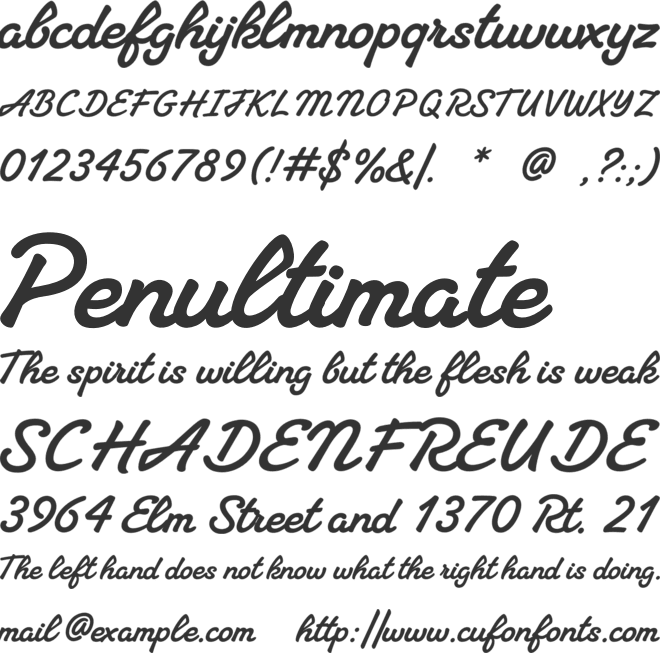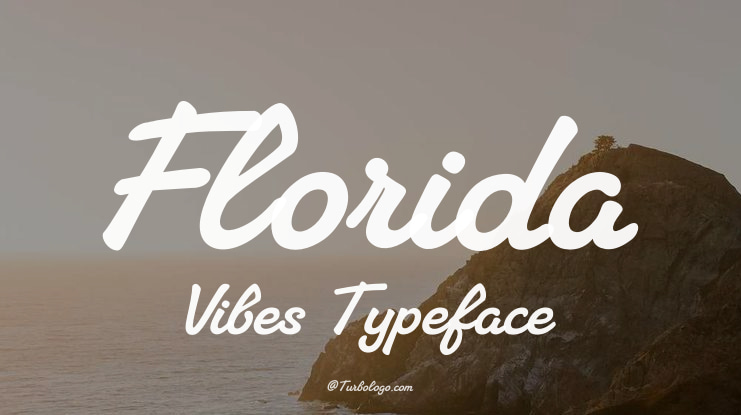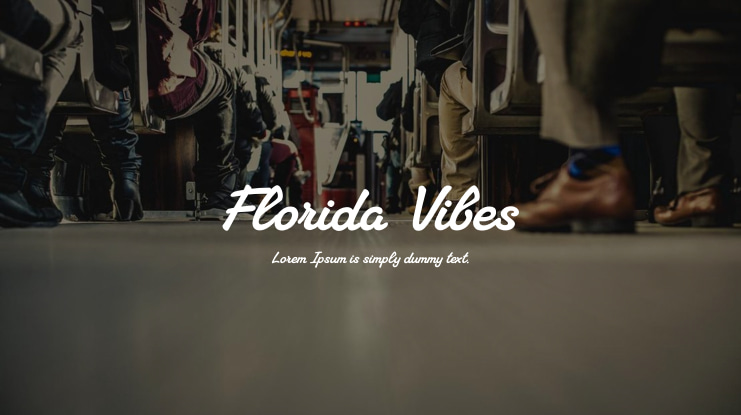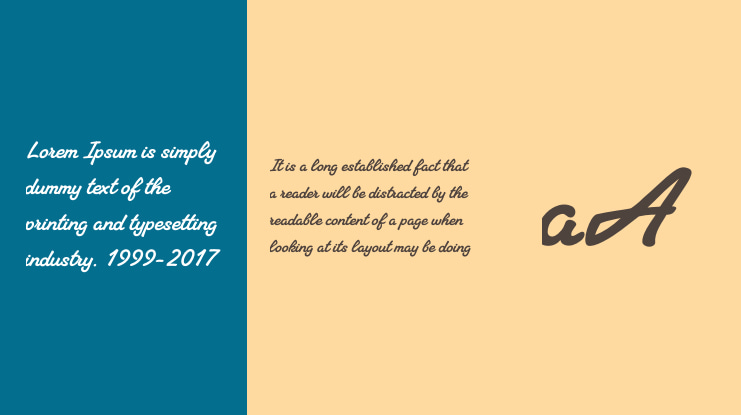
Florida Vibes Font
Florida Vibes is a handwritten font that captures the laid-back, relaxed atmosphere of the Sunshine State. Its casual, flowing strokes and playful, bouncy letters make it perfect for creating a vacation-inspired aesthetic. Whether you're designing a wedding invitation, a logo, a tropical vacation brochure, or simply want to infuse your designs with Florida's laid-back style, Florida Vibes is the ideal choice. With its friendly and informal feel, this font adds a fun and playful touch to any project.
Florida Vibes can be used in logos to give branding or marketing materials a personal touch, helping businesses stand out in a crowded marketplace. Whether you're creating a logo for a beach resort, a seafood restaurant, or a surf shop, Florida Vibes captures the essence of the Sunshine State beautifully. The font supports English, French, Spanish, German, Portuguese, Turkish, and Italian languages.